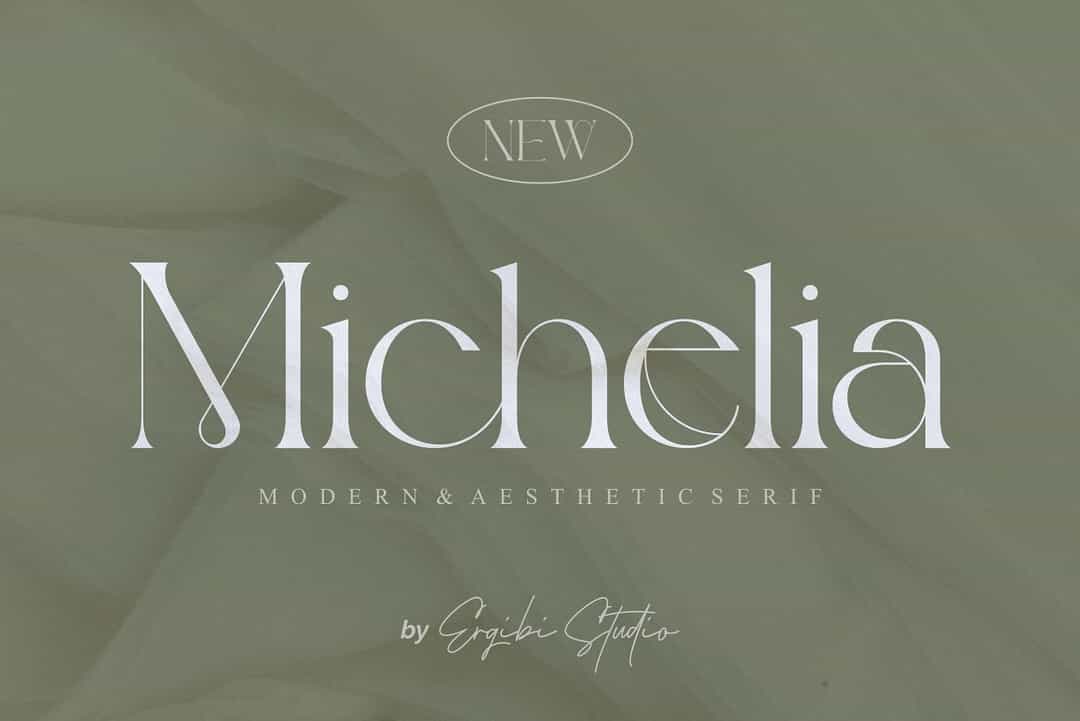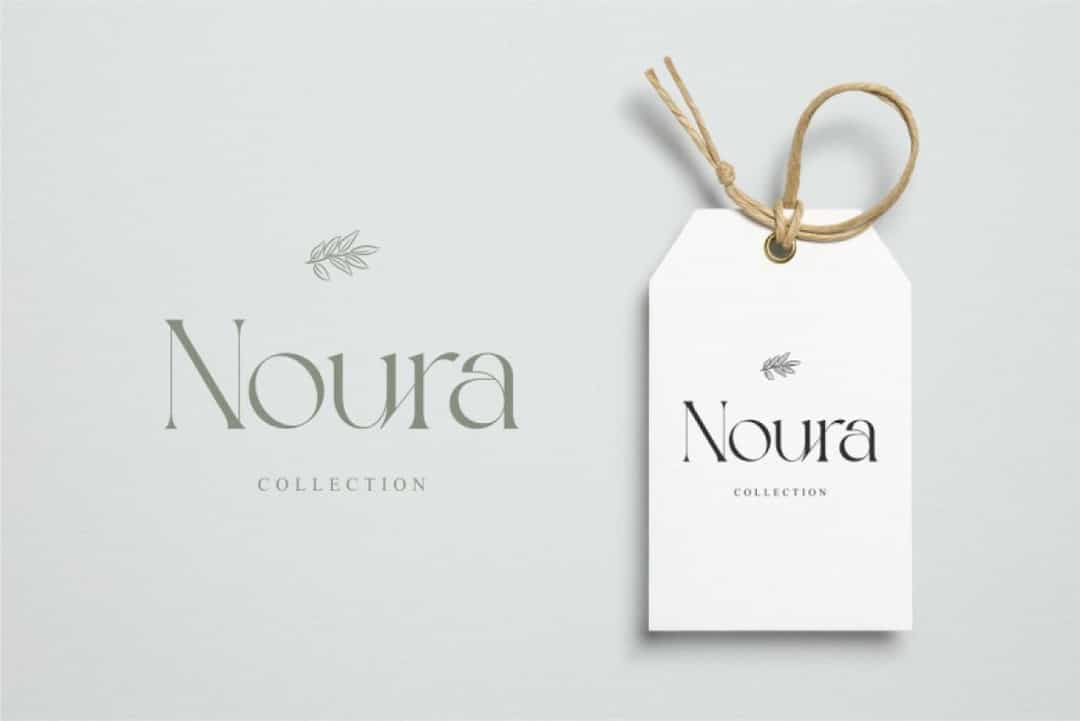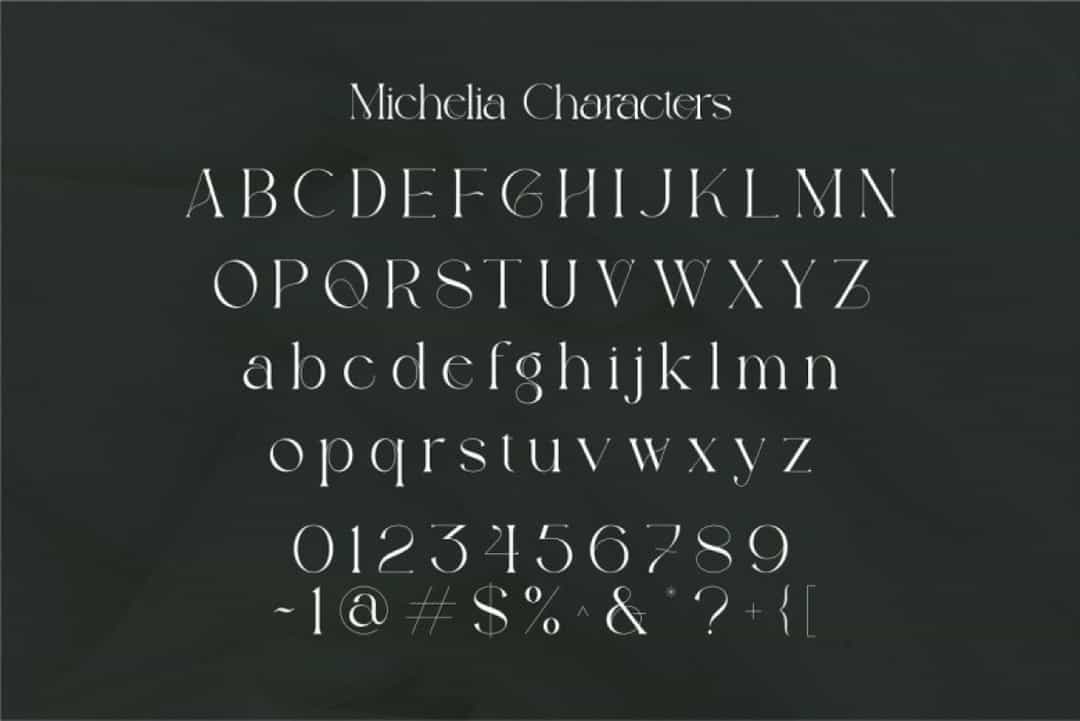
Discover Michelia Font, part of the Serif collection—a versatile and unique font perfect for adding a personal touch to your projects. Download it for free and enjoy crafting designs with style, from invitations to social media posts. This font is available exclusively for personal use, giving you the freedom to create without limits. Unlock your creativity with Michelia Font today!
Michelia Serif Typeface was inspired by today’s contemporary logos with its distinct and sophisticated shape, meeting market needs in design. Our goal was to design fonts to meet these requirements – MICHELIA fits right in with this goal, providing branding as well as logo design services with stylish fonts like this that produce appealing logos. You will achieve elegant, stylish logo design by choosing this font family!